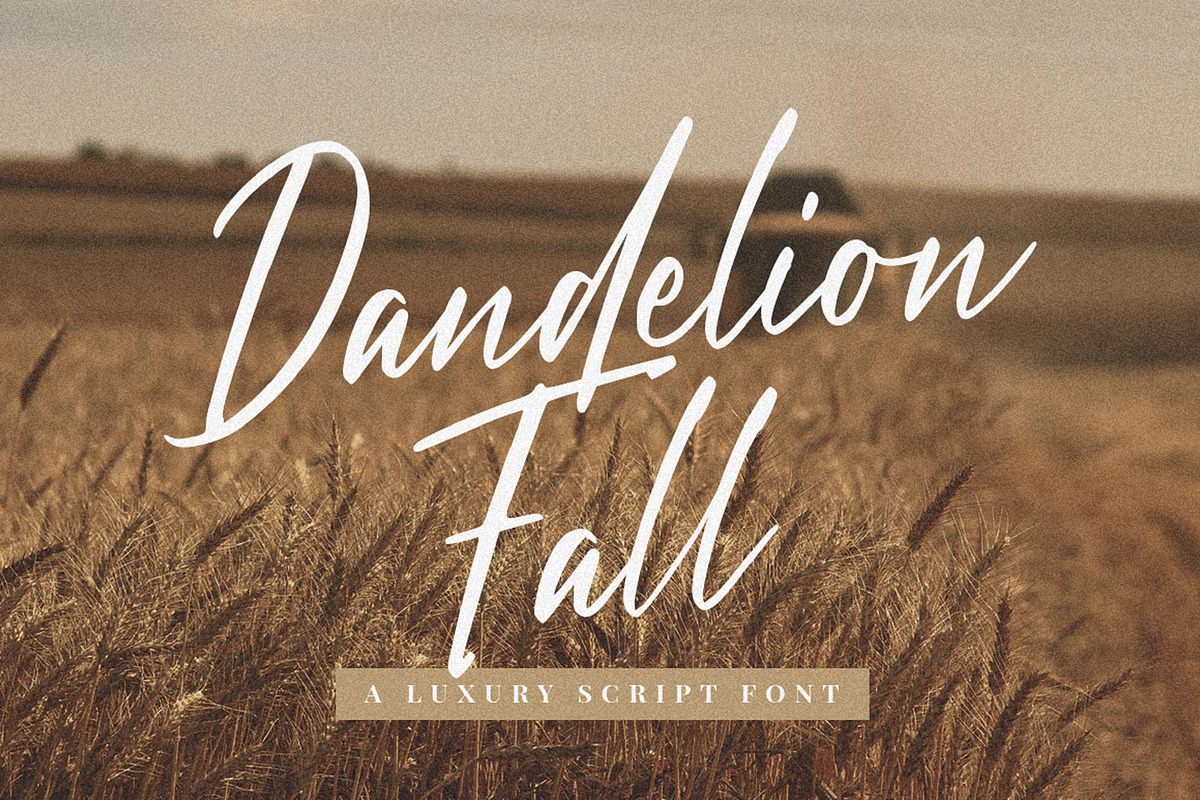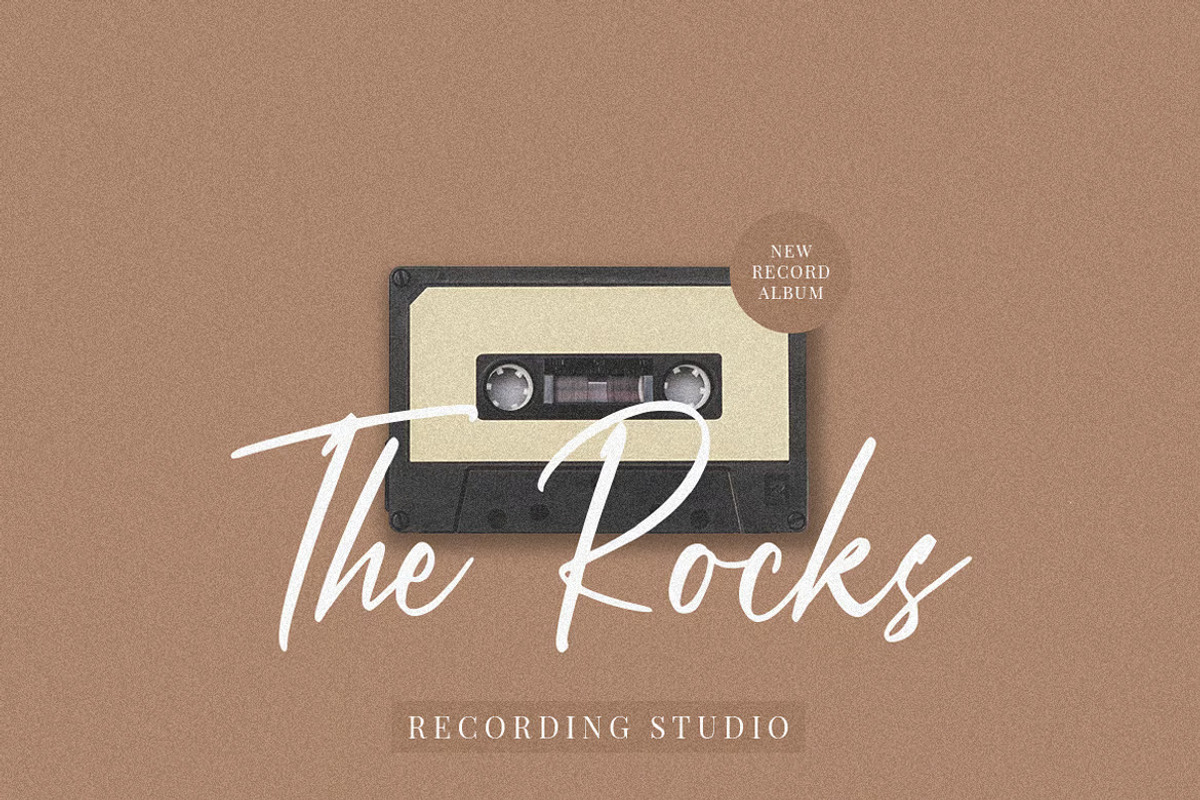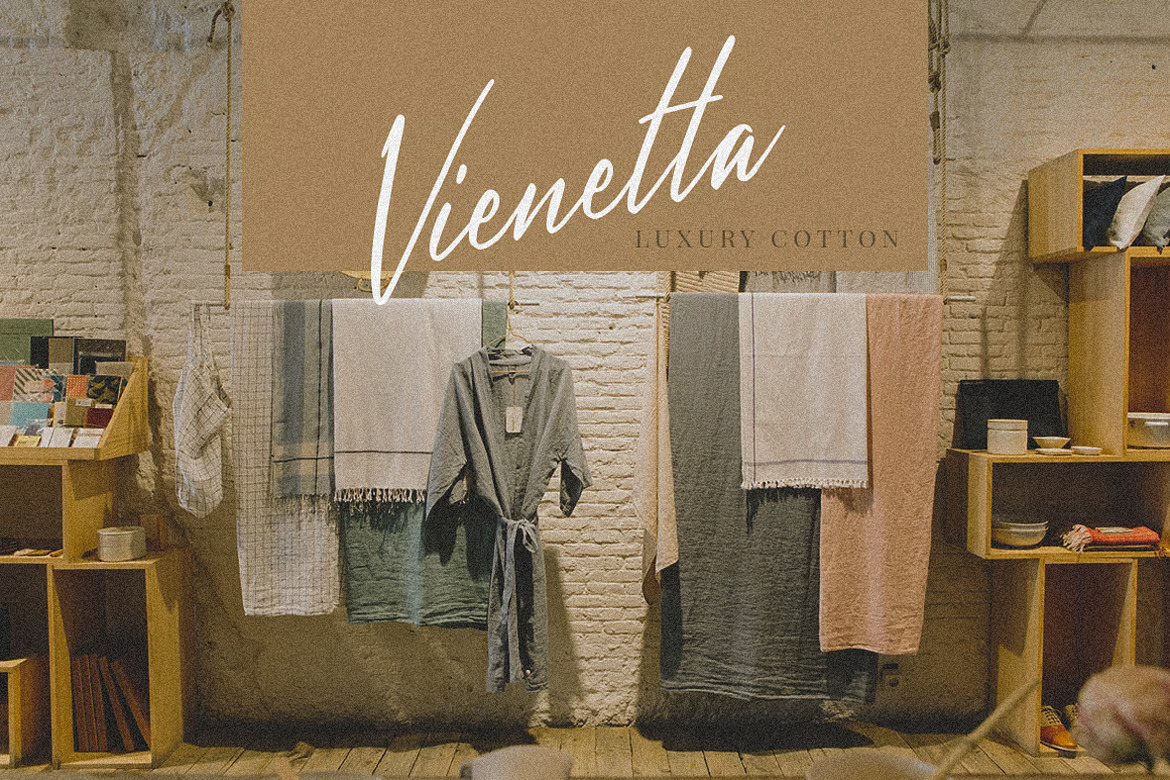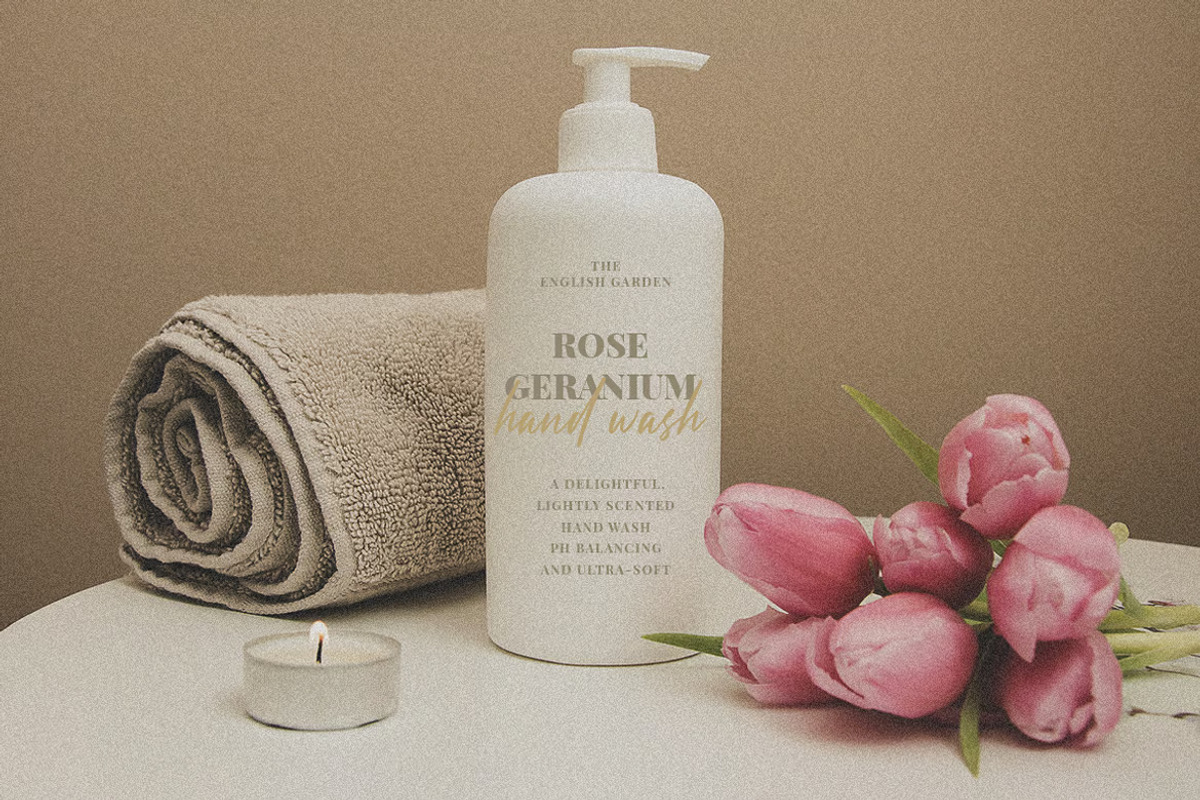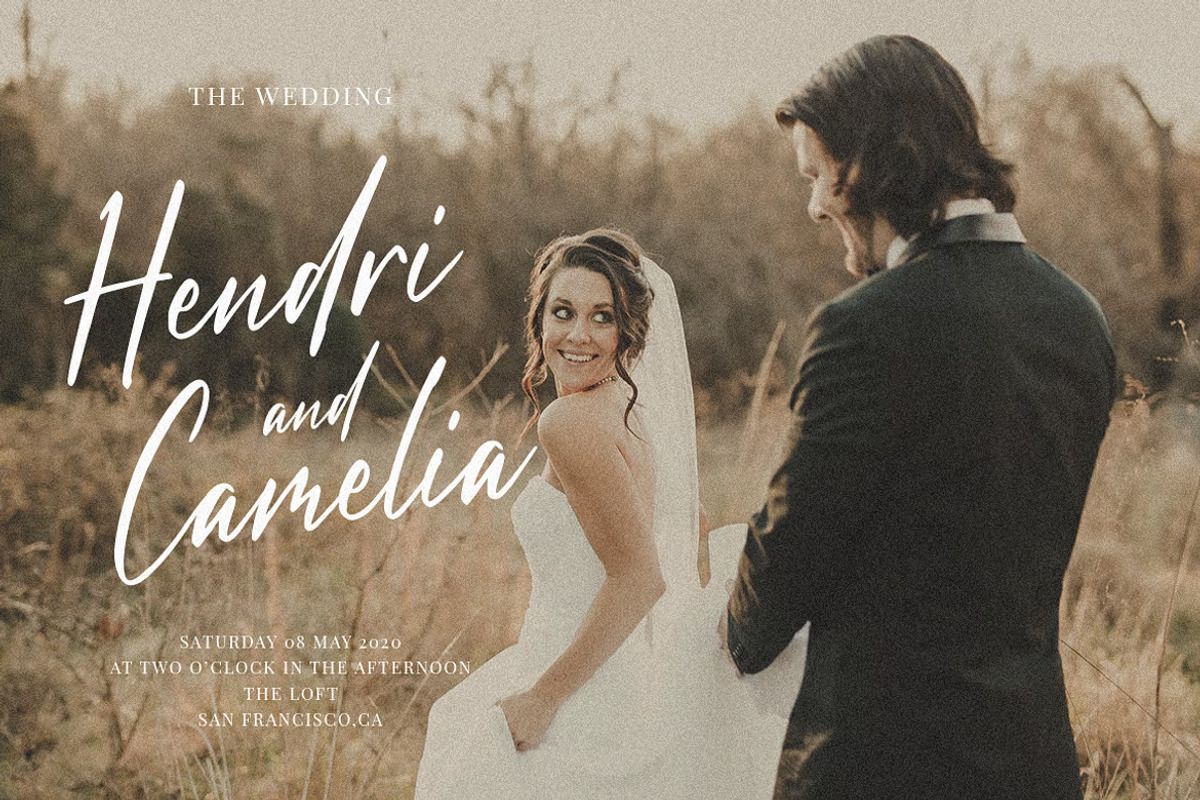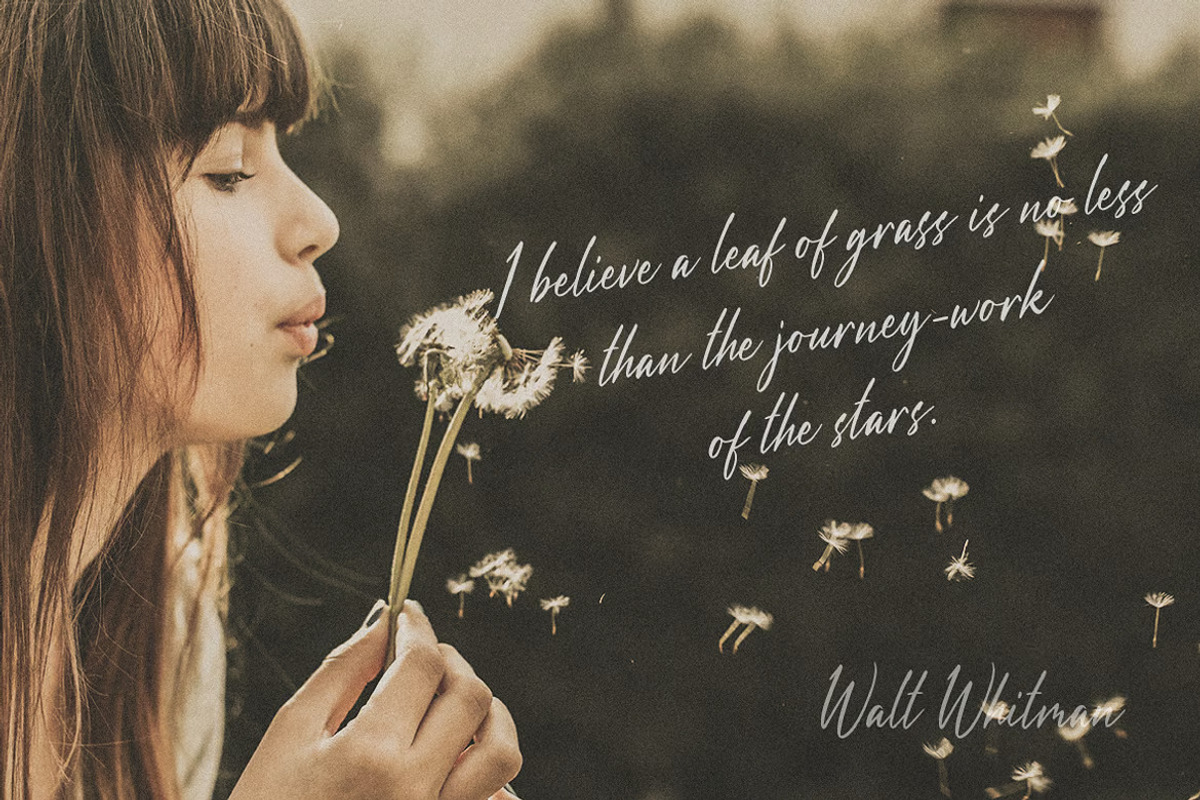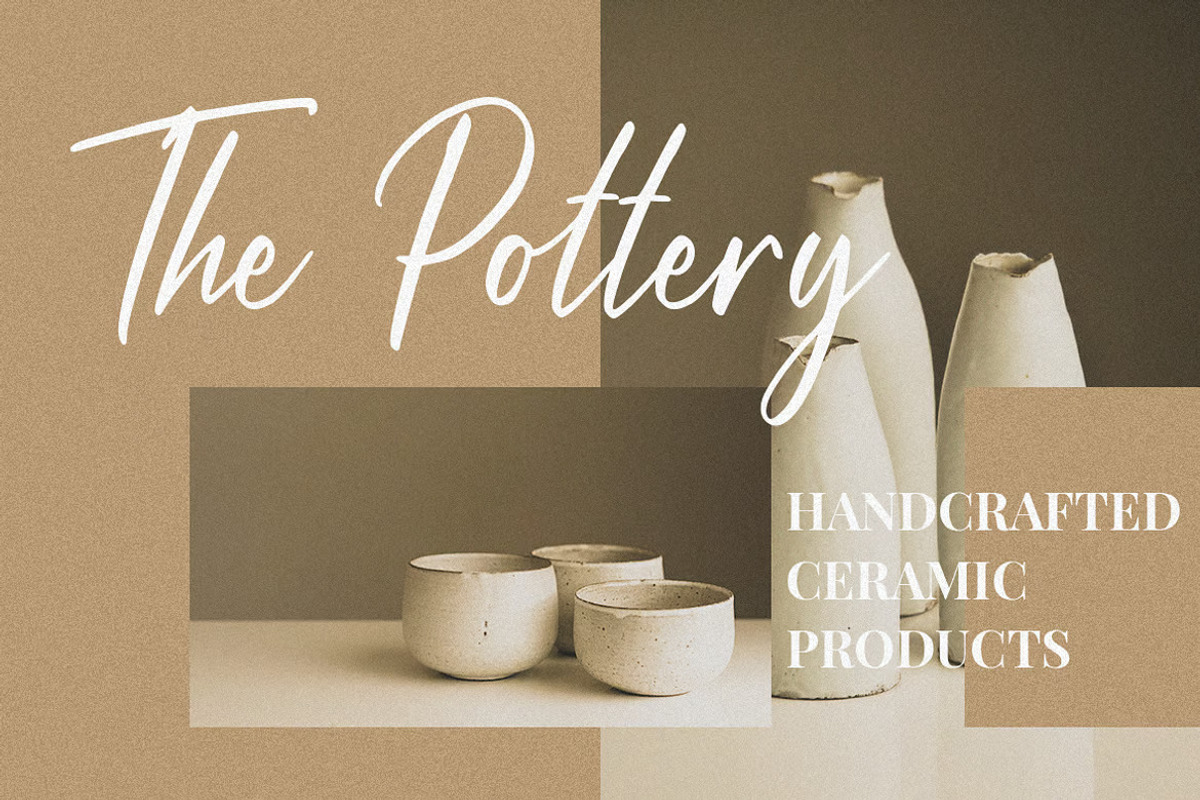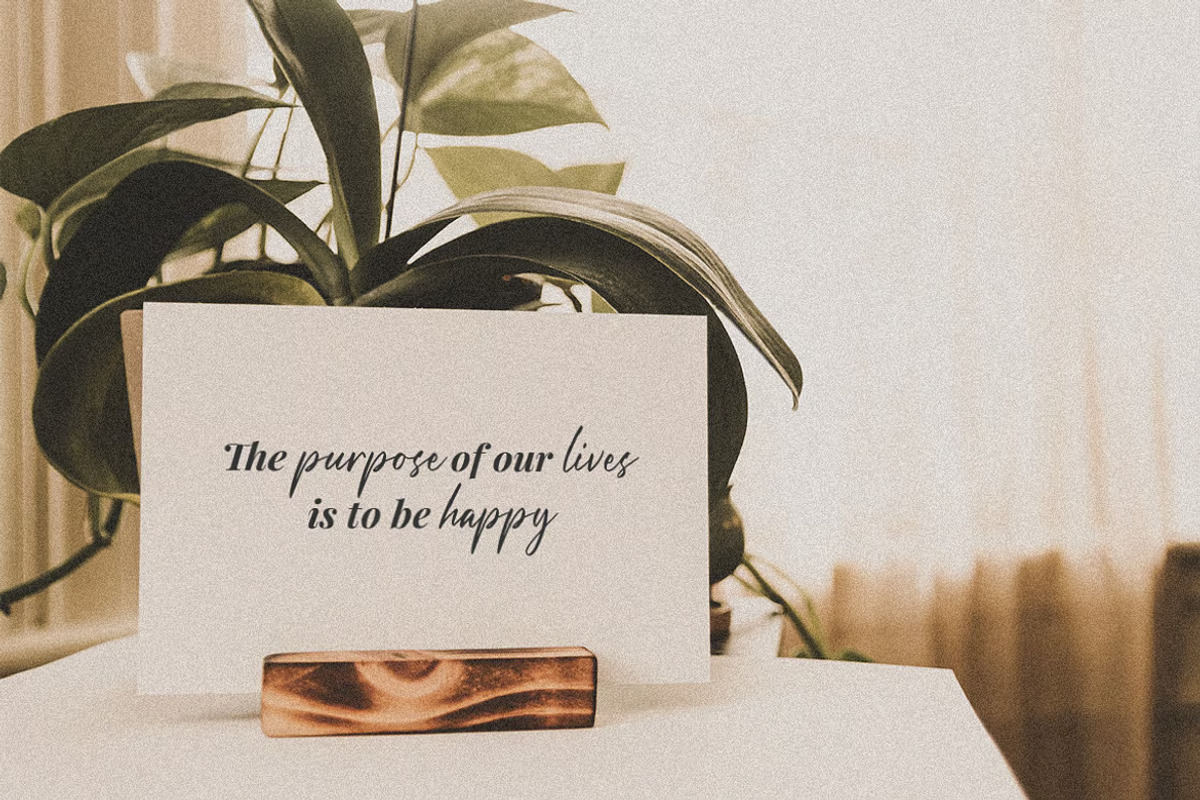
Vienetta Luxury Font Script
Introducing Dandelion Fall- A Luxury Script Font.
This font is more than just another script font. It encapsulates the essence of luxury and personalization with each stroke and every curve. Lose yourself in the romance of a crisp Fall morning, or soaking up the last drops of the sun in a golden harvest field.
Breathe life into your branding with Dandelion Fall. This Luxury Script font is perfect for headings, logos, business cards, printed quotes, wedding invitations, cards, packaging, and your website or social media branding.
- Multilingual & Ligature Support
- Full sets of Punctuation and Numerals